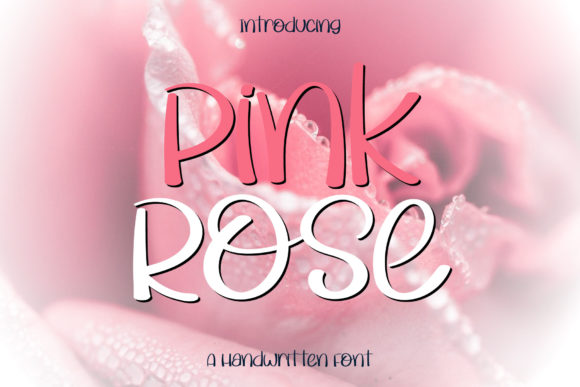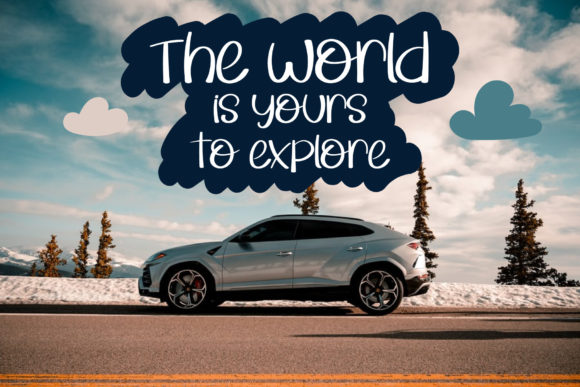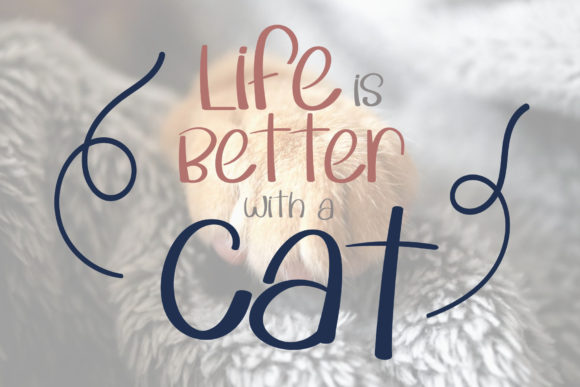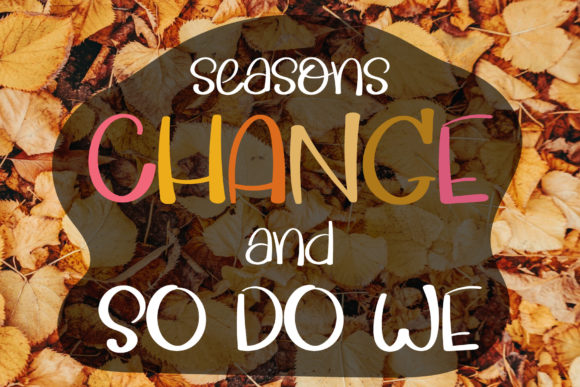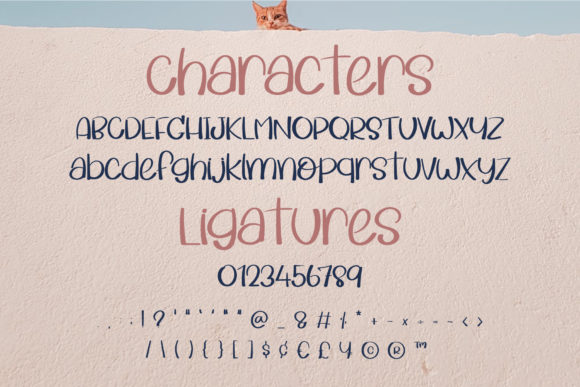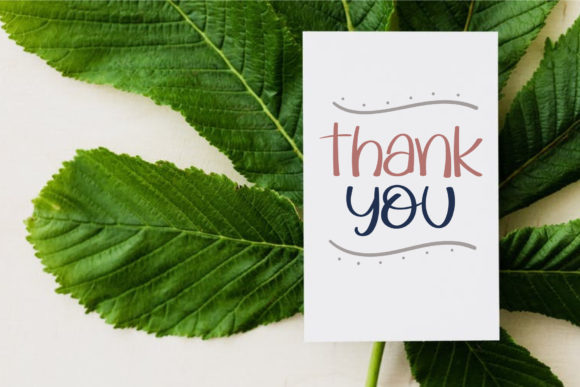
Pink Rose Font
About Pink Rose Font
Pink Rose is a delicate, jolly, and sweet lettered script font that adds a touch of charm and playfulness to your designs. With its delicate letterforms and joyful appearance, this font is a valuable asset in your font library. It has the potential to enhance any creation, regardless of the topic or theme.
The delicate nature of Pink Rose is evident in its finely crafted letterforms. The font captures attention with its elegant curves and graceful strokes. It brings a sense of beauty and refinement to your designs, making them visually appealing and captivating. Whether you’re working on invitations, branding materials, packaging, or any other creative project, Pink Rose adds a delightful touch.
Pink Rose’s jolly and sweet style creates a sense of playfulness and joy. The font exudes a cheerful and light-hearted vibe, adding a touch of happiness to your designs. It is versatile and can be used in various contexts, from greeting cards and social media graphics to children’s books and stationery.
As a wonderful asset to your font library, Pink Rose offers versatility and the potential to enhance any creation. It brings a delightful and charming element to your designs, making them more engaging and captivating. Its delicate letterforms and jolly appearance create a visually pleasing composition that resonates with viewers.
By incorporating Pink Rose into your projects, you infuse them with a sense of sweetness and joy. The font’s delicate and jolly lettered script adds a touch of charm and playfulness, making your creations stand out and leave a lasting impression. Embrace the delightful nature of Pink Rose and let it enhance your designs, creating visually appealing and cheerful creations.
In summary, Pink Rose is a delicate, jolly, and sweet lettered script font that adds charm and playfulness to your designs. Its finely crafted letterforms create a visually appealing composition. With its potential to enhance any creation, Pink Rose becomes a valuable asset in your font library. Embrace the delightful nature of Pink Rose and watch as it adds a touch of sweetness and joy to your designs, captivating viewers and creating memorable creations.